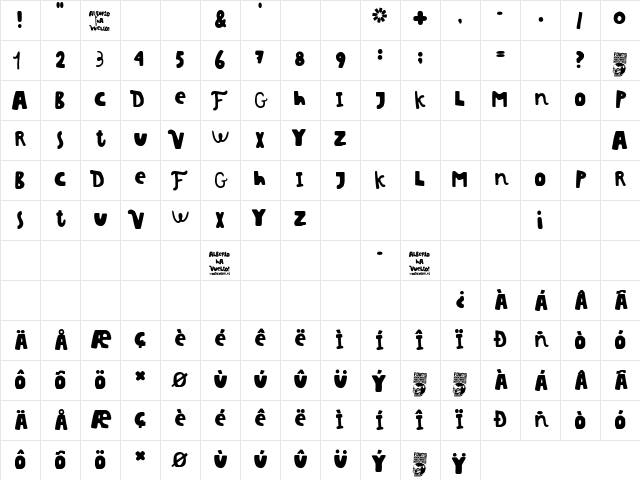
Complete Alberto ha Vuelto! Regular glyph index. Displaying only characters natively supported by Alberto ha Vuelto! Regular font.
Alberto ha Vuelto! is a composed and adaptable typeface that performs quietly and consistently across a wide range of design contexts.